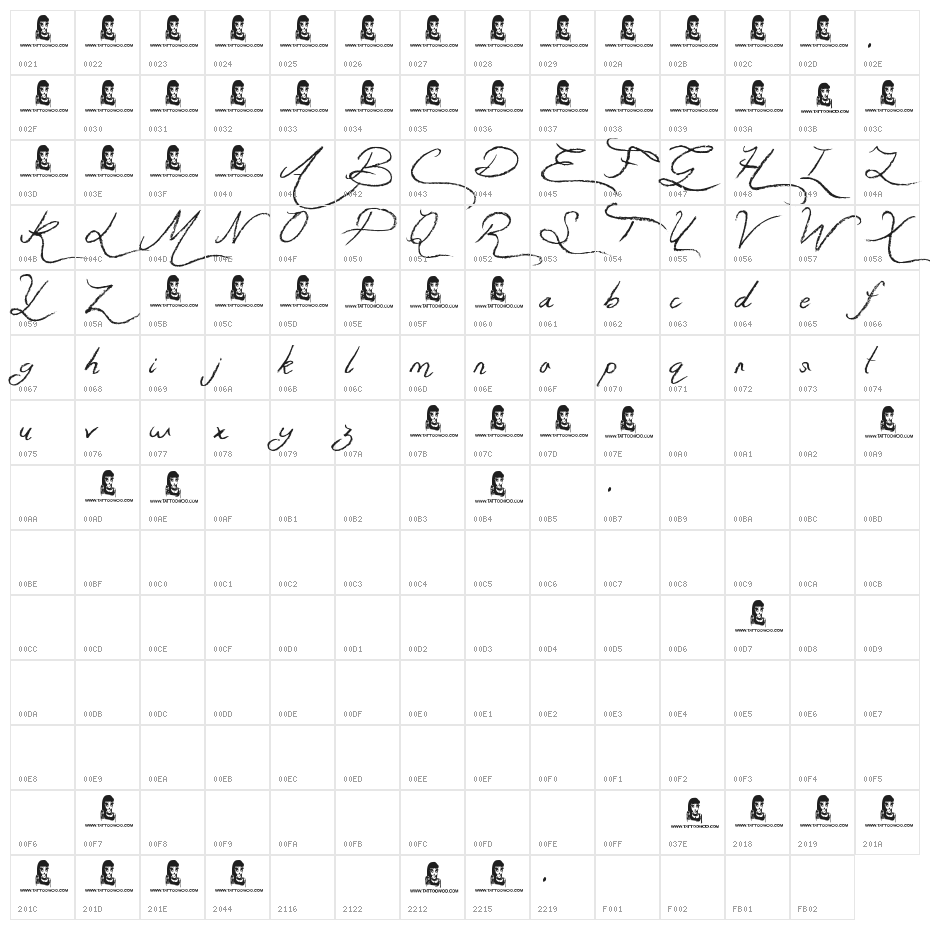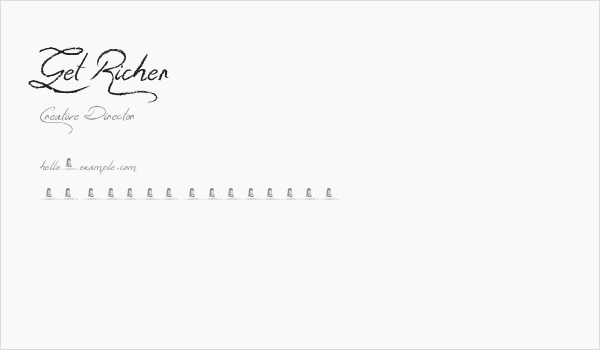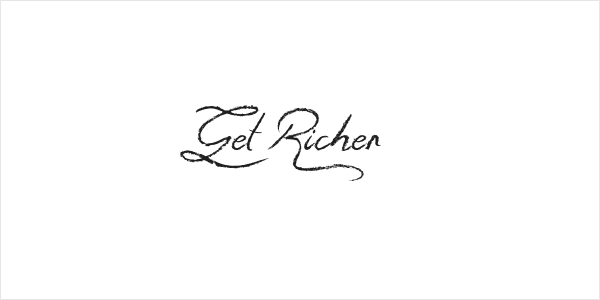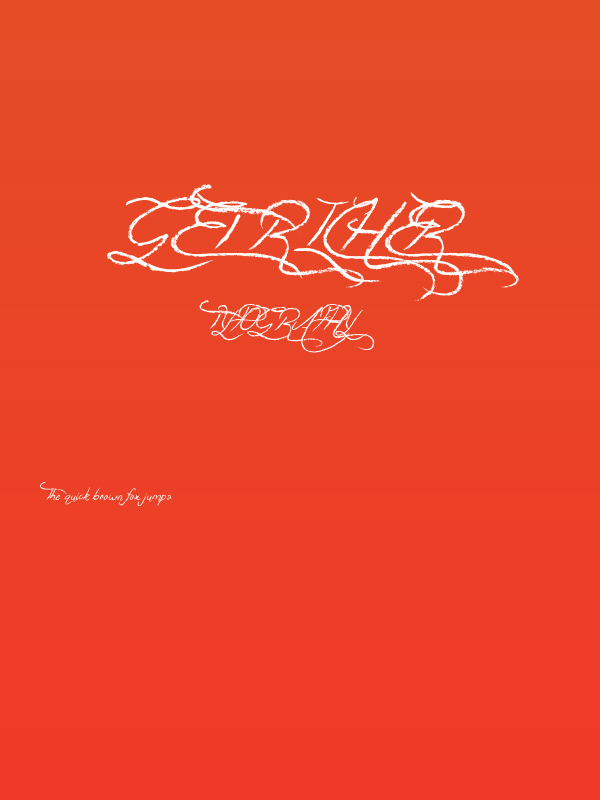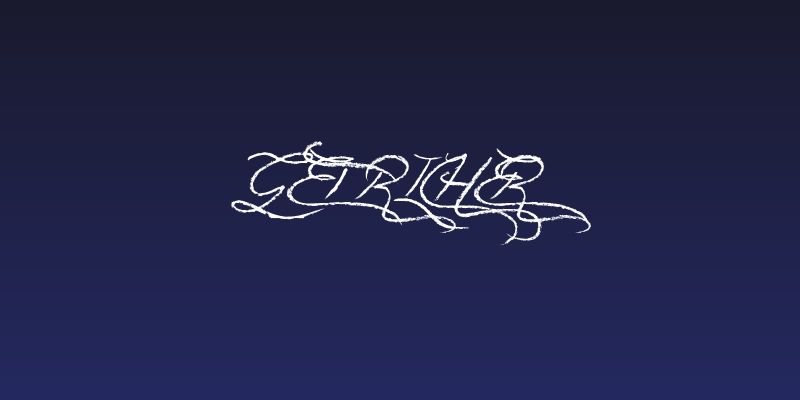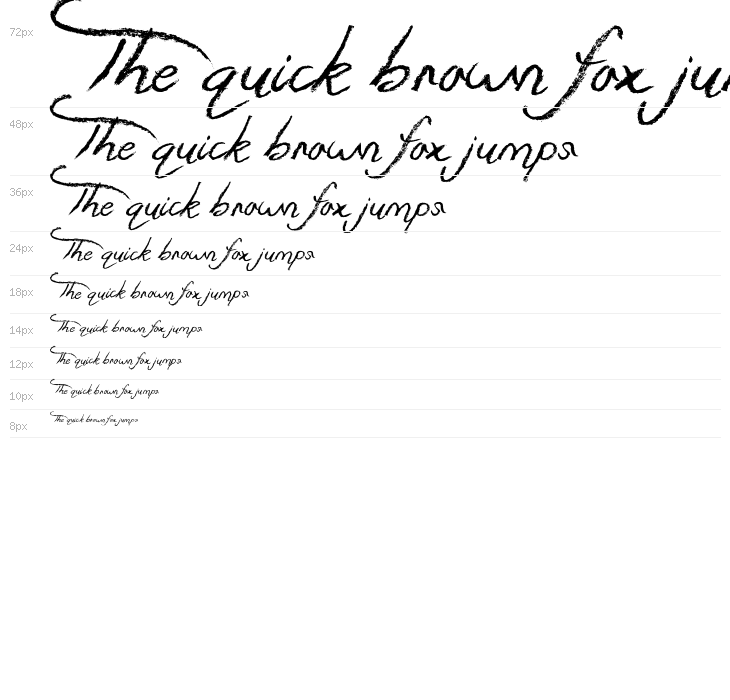
Get Richer Font
Get Richer Description
This font exhibits a dynamic and expressive style, characterized by its flowing, cursive script that mimics the fluidity of handwriting. The uppercase letters are elaborate, with intricate loops and flourishes that add a sense of elegance and sophistication. The lowercase letters maintain a consistent style, with smooth curves and a slightly slanted orientation, enhancing the handwritten aesthetic. The overall texture of the font appears rough and textured, giving it a unique, artistic feel. This font is ideal for projects that require a personal touch or a creative flair, such as invitations, greeting cards, or artistic branding.
| Overall Style | Artistic |
| Use Case | Logos, Artistic projects, Invitations |
| Proposed Projects | Ideal for invitations, greeting cards, artistic branding, and creative projects. |